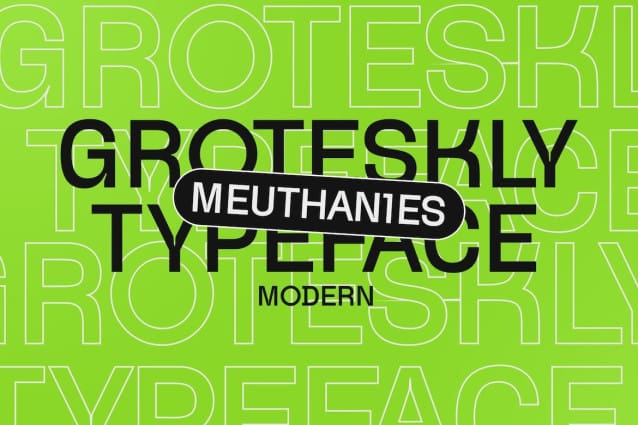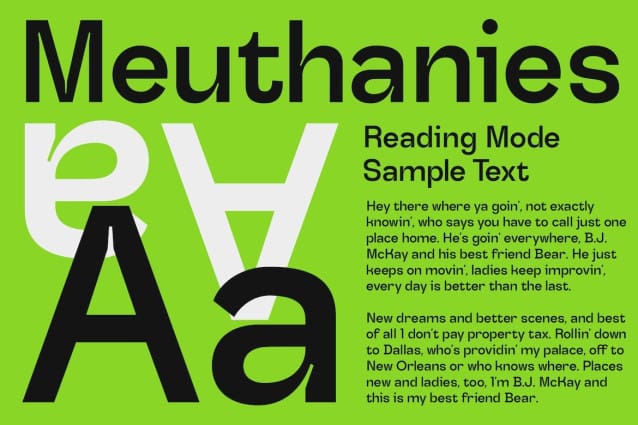
Meuthanies Font
Meuthanies Font a versatile and contemporary sans serif typeface that combines clean lines with a bold aesthetic. This font is perfect for a wide range of design projects, from branding and logos to editorial design and web interfaces. Its sleek and modern look helps your text stand out, making it ideal for both digital and print media.